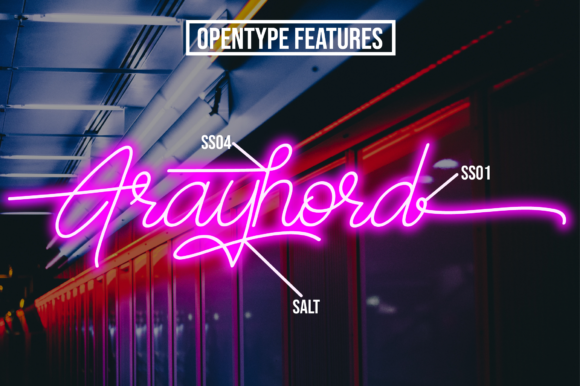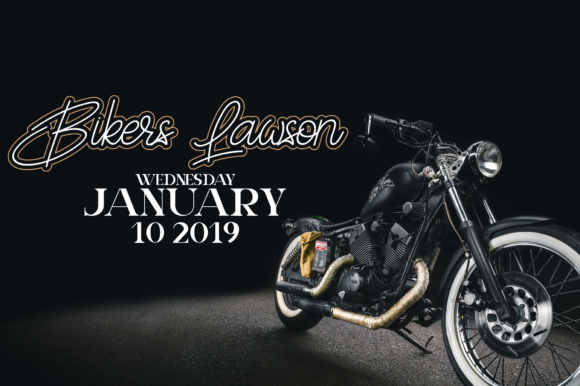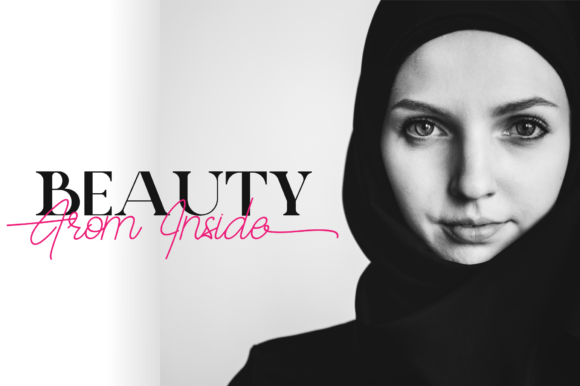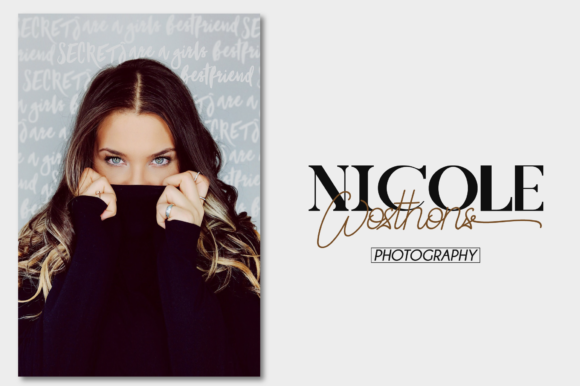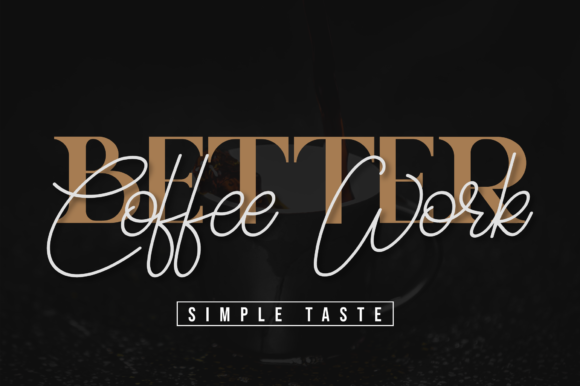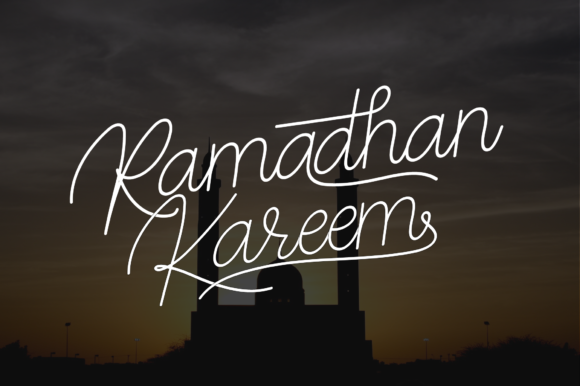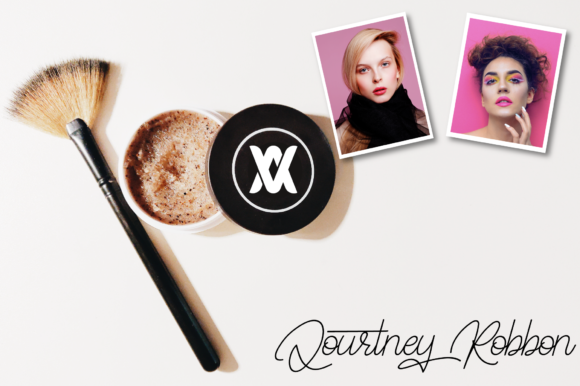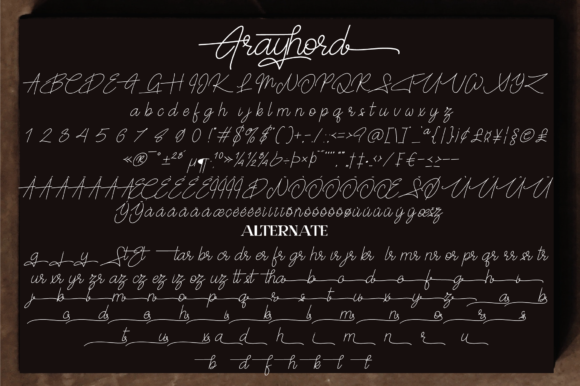
HomeScript FontsFrayhord Font Script Fonts Frayhord Font FacebookXPinterestWhatsApp Frayhord Font Poster 2 Frayhord Font Poster 3 Frayhord Font Poster 4 Frayhord Font Poster 5 Frayhord Font Poster 6 Frayhord Font Poster 7 Frayhord Font Poster 8 Frayhord Font Poster 9 About Frayhord Font Frayhord is a stunning handwritten font with a bold feel. It will turn any design project into a true stand out! DOWNLOAD ON CREATIVE FABRICAThis font is sold and delivered by Creative Fabrica. Font Canyon may earn a commission if you buy through this link. People also explored Pacifica Font Astronout Font Square Lemon Font Resillia Script Font Reddish Font Define Yourself Today Font Halloween Spider Monogram Font Forever Brush Script The Billion Font 318 0 TagsFrayhord Font Previous articleQuintuples FontNext articleStay High Font LEAVE A REPLY Cancel reply Comment: Please enter your comment! Name:* Please enter your name here Email:* You have entered an incorrect email address! Please enter your email address here Website: Save my name, email, and website in this browser for the next time I comment. Personal Use Free Gdynia Personal Use Free Read more about this font Tahu Font Personal Use Free Read more about this font Eigha Personal Use Free Read more about this font Whitelight Personal Use Free Read more about this font BLOG How to Install and Use Fonts on Windows, macOS, and Web Projects How to Install and Use Fonts on Windows, macOS, and Web Projects Fonts are a crucial part of design and branding. Whether you’re designing a... Exploring Font Trends The 10 Best Handwriting Fonts to Add Personality to Your Designs Free Fonts Risk: Why Free Fonts Can Be Dangerous for Designers